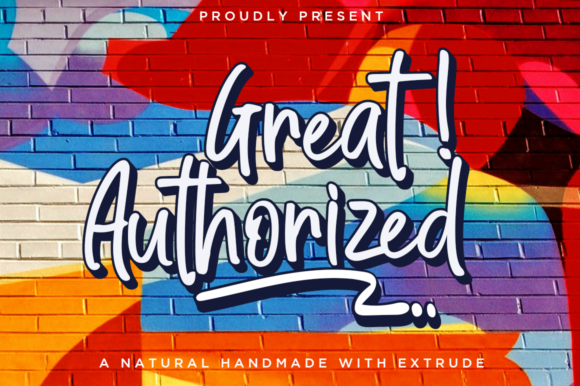
Embark on a typographic odyssey with the captivating Great Authorized font family, a script font meticulously crafted by the visionary Haksen. This exquisite creation transcends the boundaries of ordinary typefaces, beckoning you to an extraordinary realm of creativity.
Step into a world of elegance and refinement, where every letter dances with grace, exuding a timeless charm that elevates your designs to new heights of sophistication. Great Authorized's enchanting curves and delicate flourishes will captivate your audience, leaving them spellbound by your typographic prowess.
As you glide through the diverse font weights, from the delicate hairlines to the bold and commanding strokes, you'll discover a versatility that adapts seamlessly to any project. Whether you seek to craft elegant invitations, captivating logos, or social media posts that demand attention, Great Authorized stands as an indispensable tool in your creative arsenal.
Indulge in the limitless possibilities that await you with Great Authorized. Whether you're a seasoned designer or just starting your typographic journey, this font family will unlock your imagination and unleash a torrent of creative brilliance.
Don't let mediocrity define your designs. Embrace the transformative power of Great Authorized and witness the metamorphosis of your projects into masterpieces that inspire and enchant. Make a statement, command attention, and leave an unforgettable impression on your audience.
Seize this opportunity to elevate your creative endeavors and embark on an artistic odyssey with Great Authorized. Its exceptional elegance and versatility will transform your vision into reality, leaving a lasting legacy of beauty and brilliance.